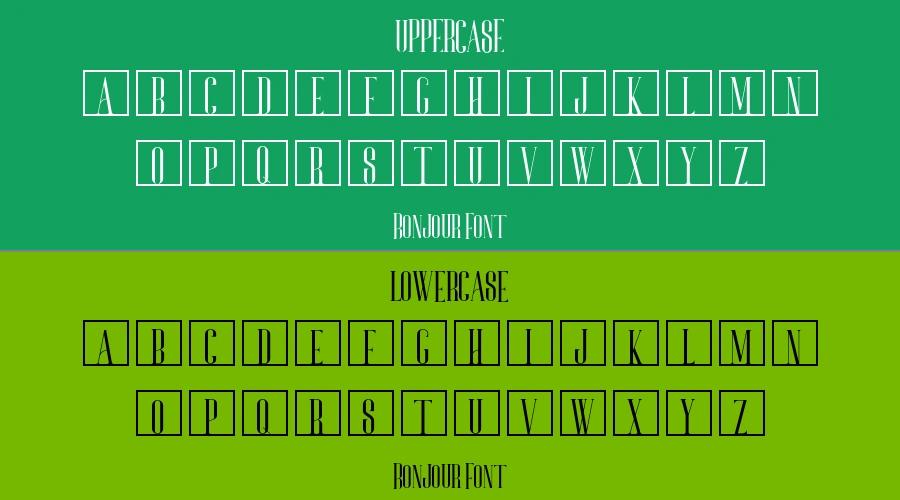
About Bonjour Font
Bonjour Font represents a sophisticated approach to type design, balancing hand-drawn quality with professional finish. Perfect for presentation decks, this font family showcases impressive clarity and cultural relevance throughout its character set. Designers appreciate its versatility and reliability.
Designers will appreciate nuanced touches including geometric serifs and period ligatures, adding sophistication to any project. These features become apparent in editorial spreads, where language switching matters most. The careful treatment of descender depth and academic heritage ensures optimal performance.